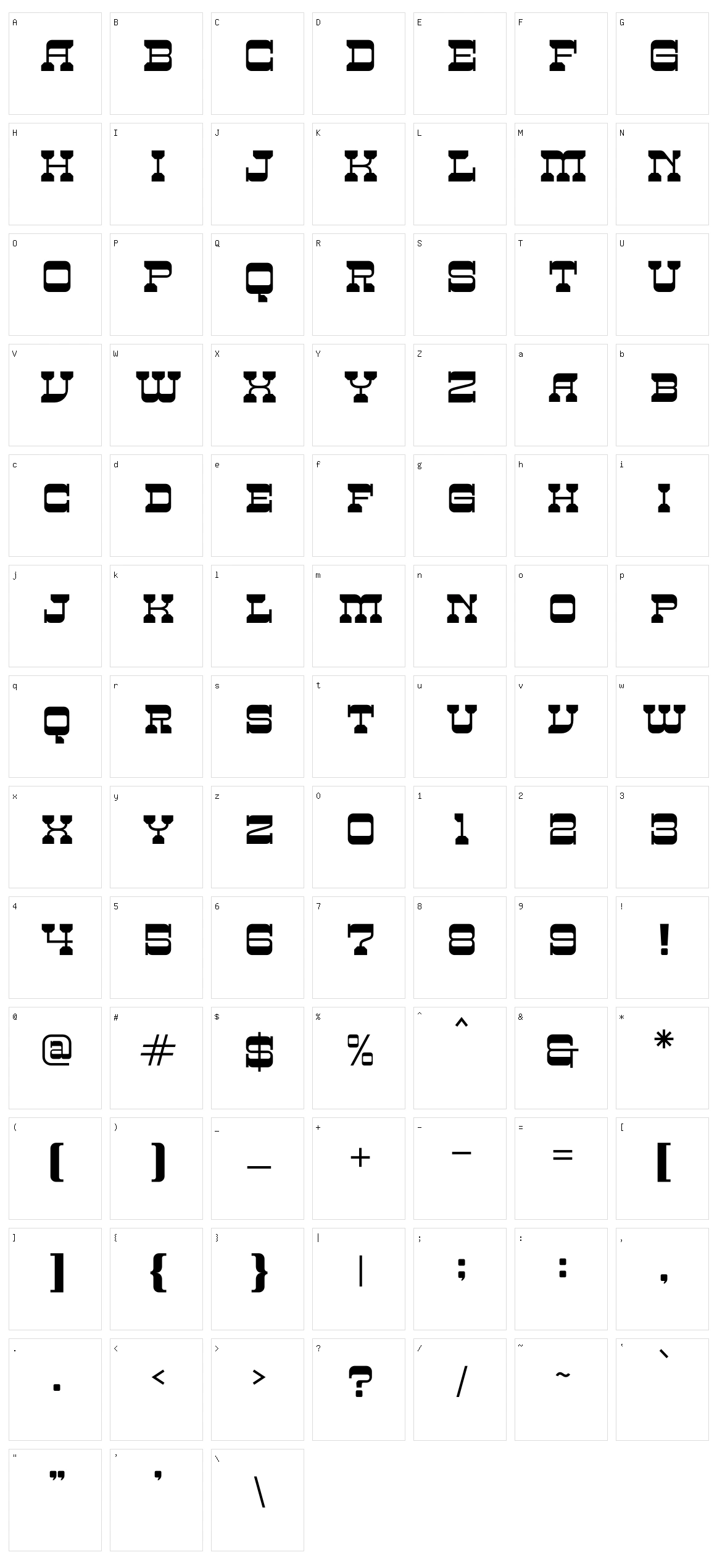
The free font Big Rodheo is carefully designed by Storytype Studio, showcasing a thoughtful balance of creativity and usability and falls under the Western font style. When you download the ZIP file, it contains only 11.52 KB of font files, making it lightweight and quick to download. Please review the license details below to understand permitted usage and distribution rights. If license information is not available, we recommend using this font for personal projects only or contacting the author directly for commercial usage permissions.